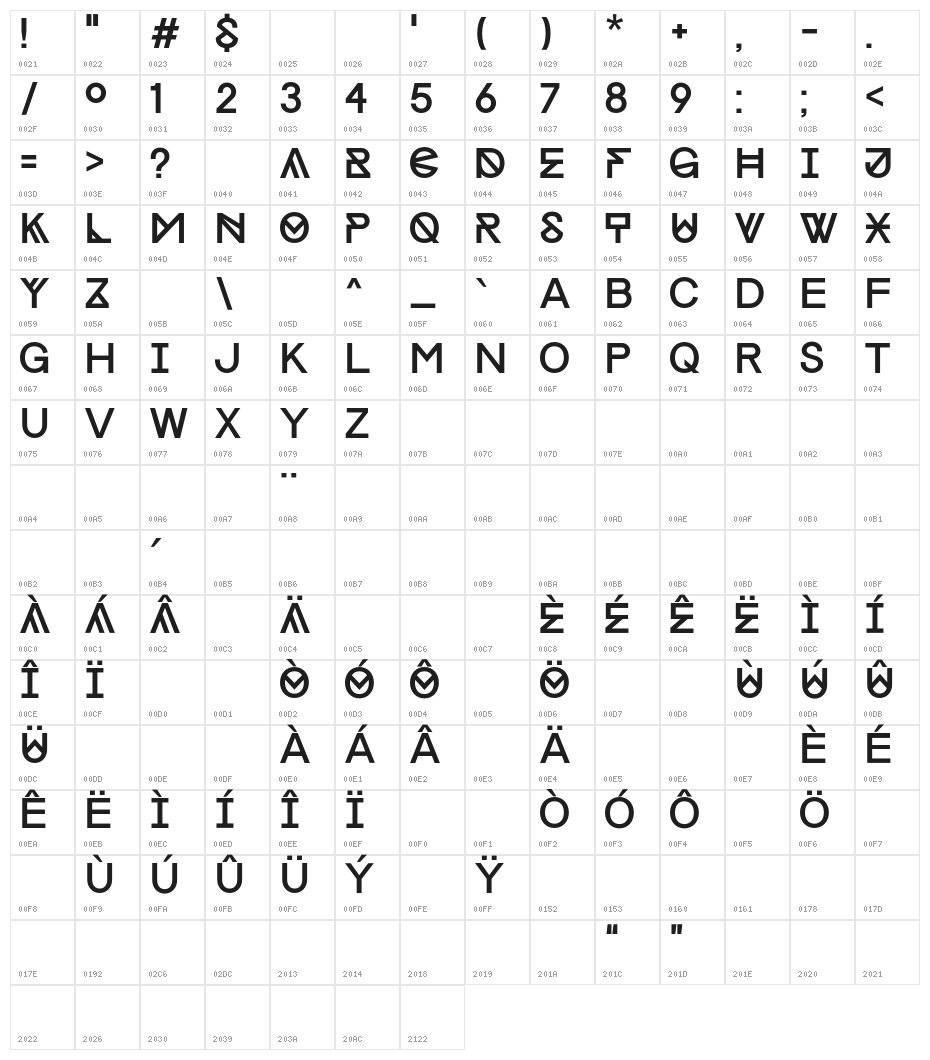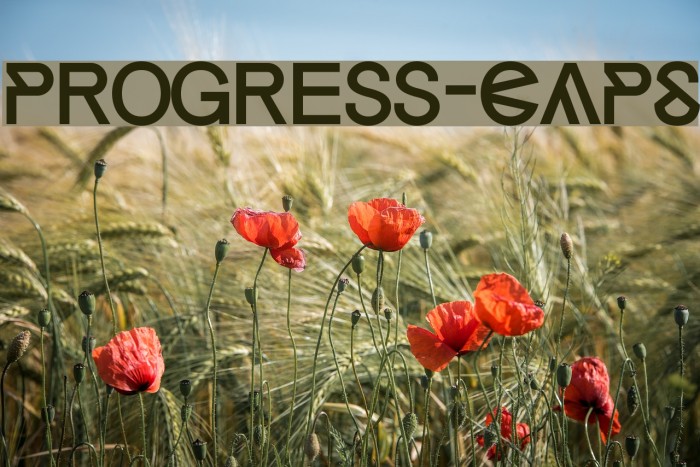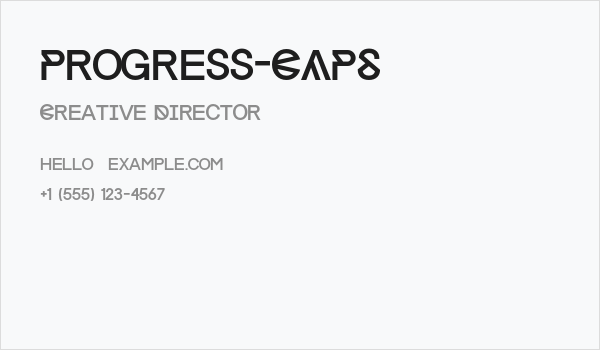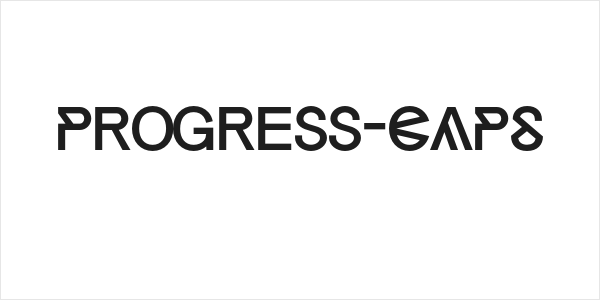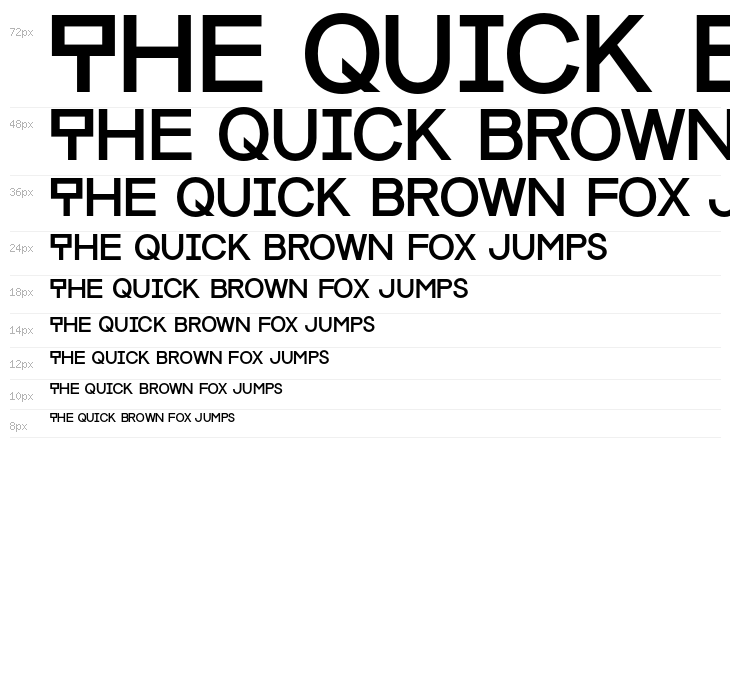
Progress-CAPS Font
Progress-CAPS Description
This font features a bold and geometric design, characterized by its angular and futuristic letterforms. The uppercase letters are distinct with sharp edges and a unique, almost stencil-like appearance. The numbers and special characters maintain the same boldness and geometric style, ensuring consistency throughout the typeface. The overall aesthetic is modern and eye-catching, making it suitable for projects that require a strong visual impact. The font's design is both functional and decorative, offering versatility in various applications.
| Proposed Projects | Ideal for branding, posters, headlines, and any design that requires a strong, modern aesthetic. |